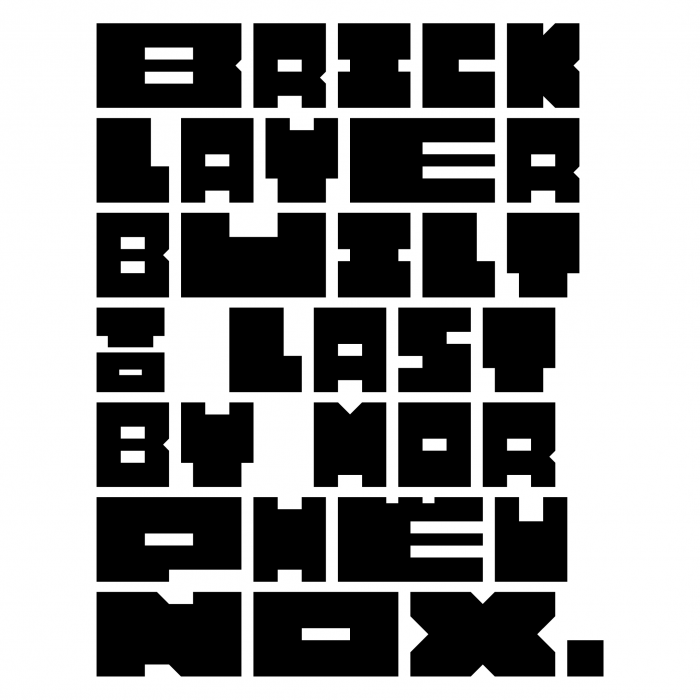
• A typeface that provides you with a glimpse into brickwork construction.
Monospace lowercase and duospace uppercase (double the width of lowercase), with negative-space diacritics.
Strong tensile and compressive strength (works well stretched, squeezed, and warped in general).